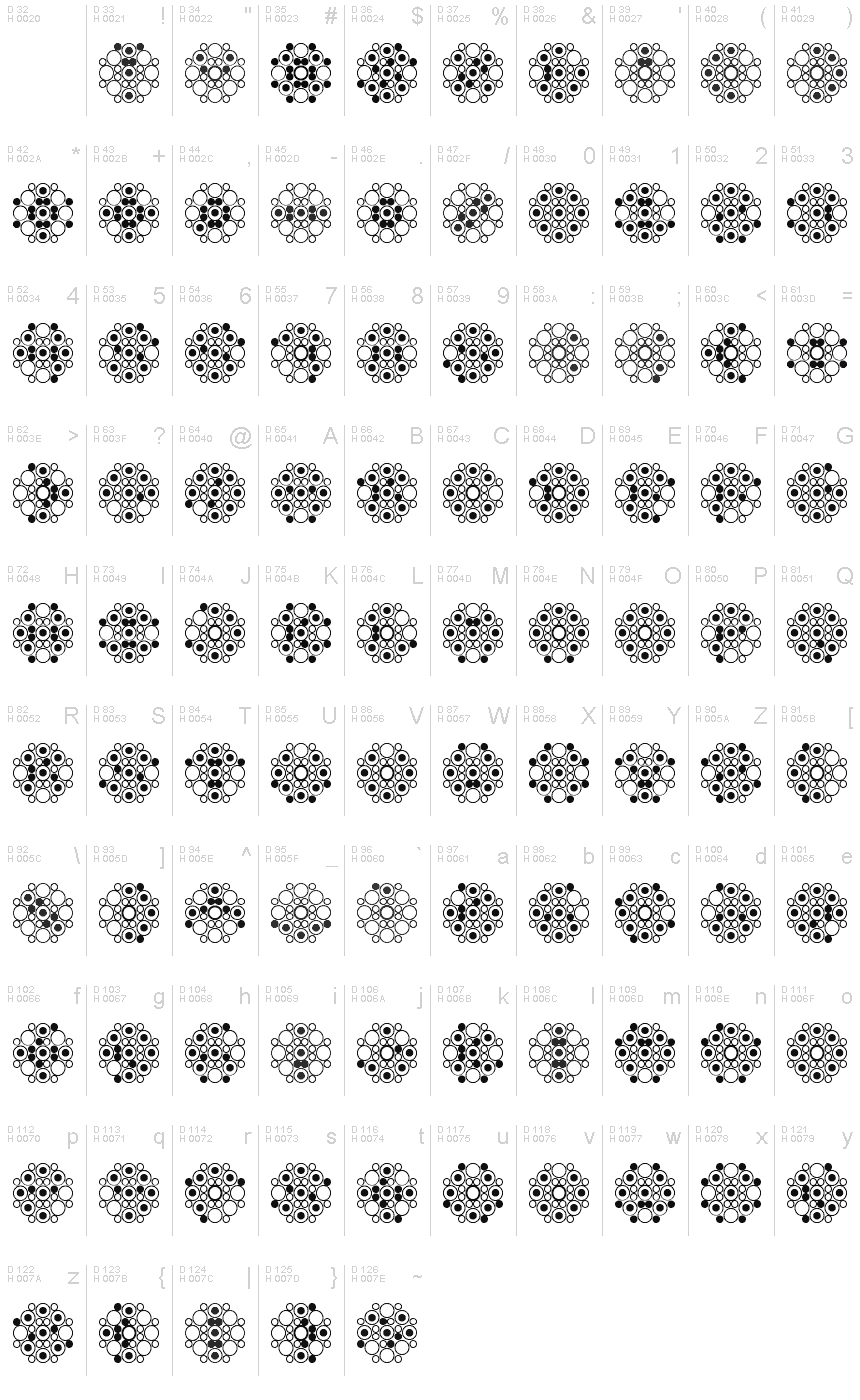
Nirvanite Fossil Regular
Designer description: Alternate take on Nirvanite, this time with bullseyes rather than solid circles as the large segments.
This one is a lot more organic than its predecessor, but also a lot more confusing. Looks like clusters of alien tadpole eggs to me! :^)